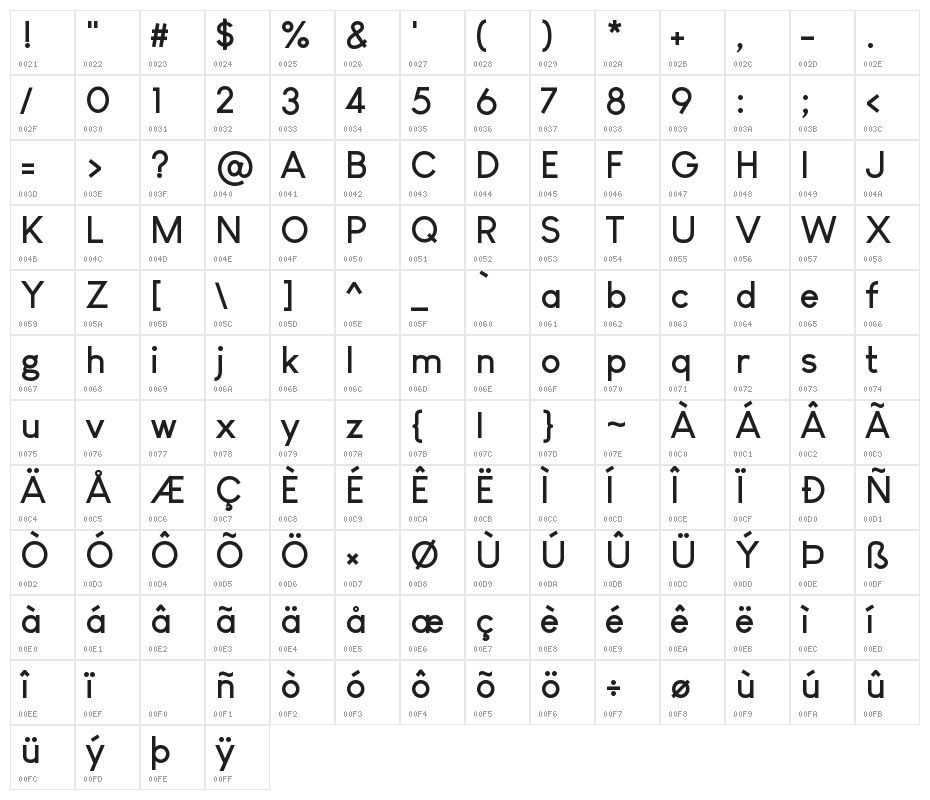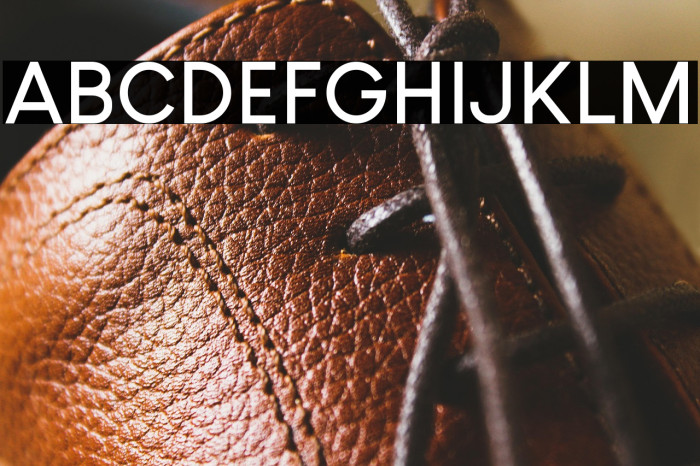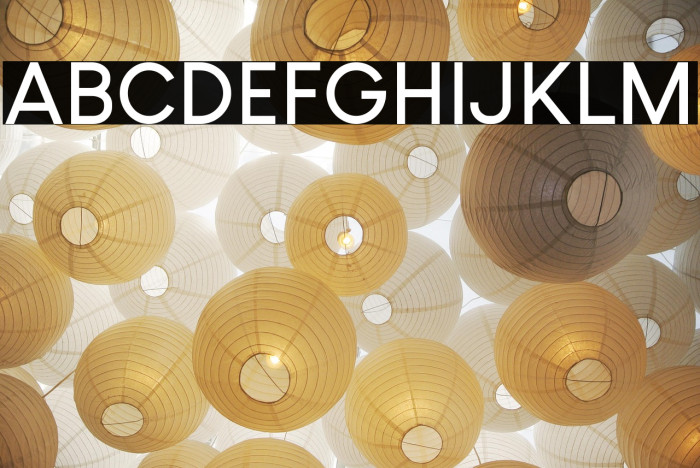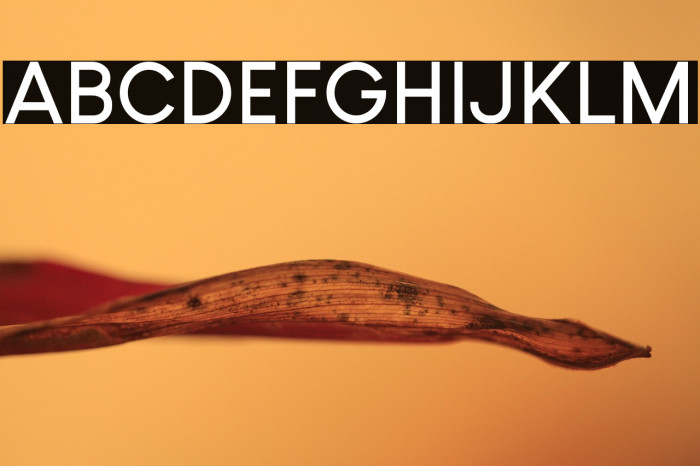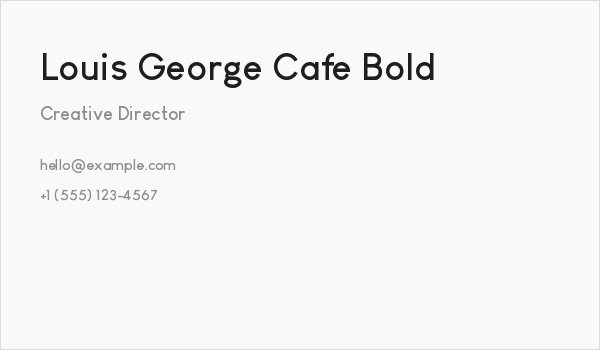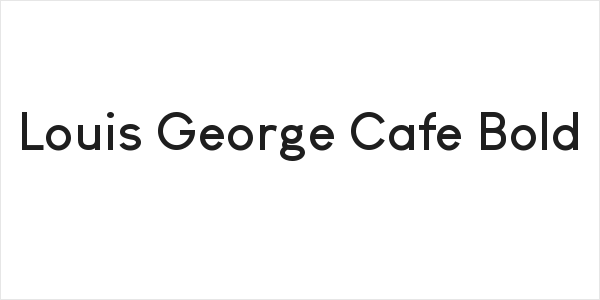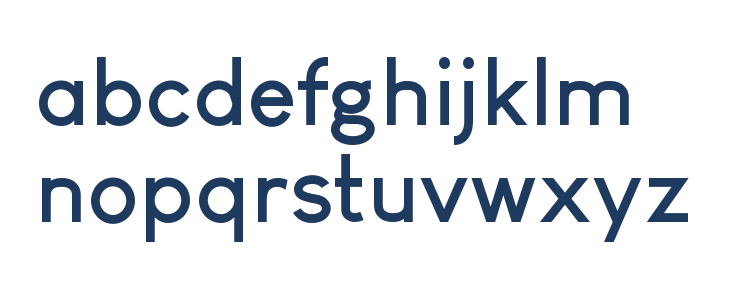
Louis George Cafe Bold Font
Louis George Cafe Bold Description
This font features a clean and modern sans-serif design with a bold weight, making it highly legible and impactful. The characters are evenly spaced, contributing to a balanced and harmonious appearance. The uppercase and lowercase letters are well-proportioned, with rounded edges that add a touch of softness to the overall look. The numerals are clear and distinct, ensuring readability in various contexts. Special characters are included, maintaining the font's cohesive style. This font is suitable for a wide range of applications due to its versatile and contemporary aesthetic.